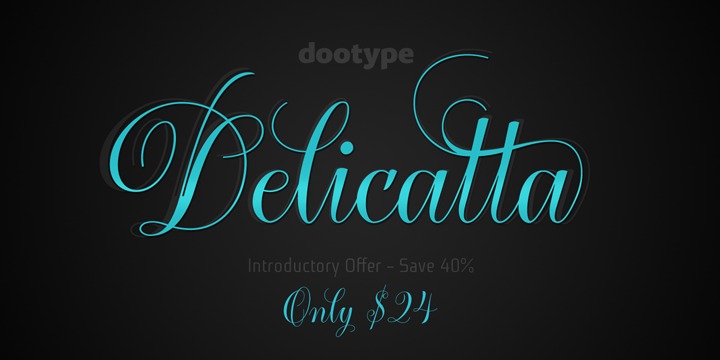
Delicatta is a font created by Eduilson Wessler Coan and published by dooType which goes perfectly with packaging, invitations, magazines and posters.
Foundry: dooType